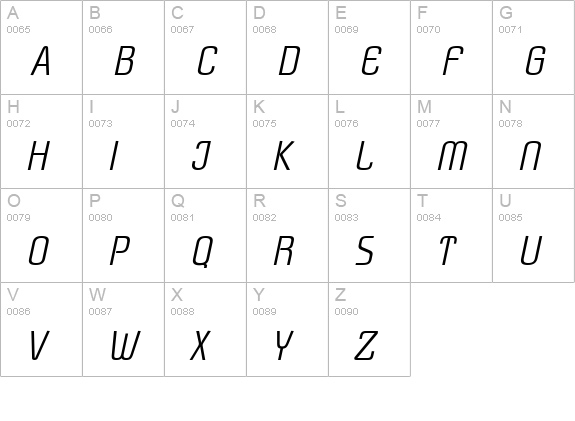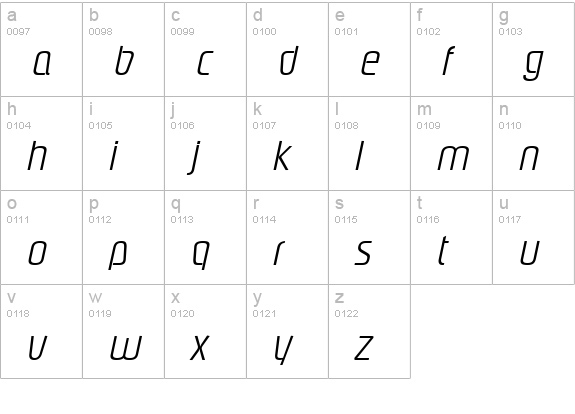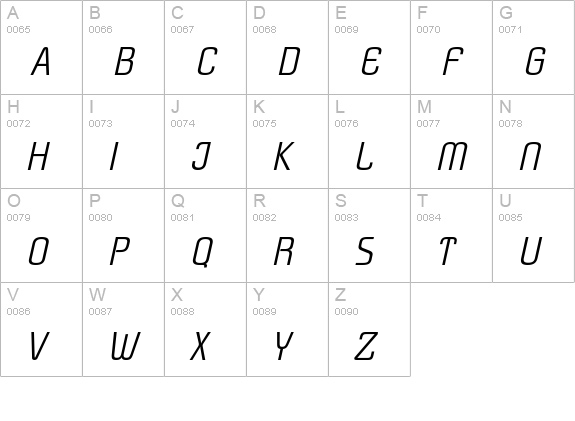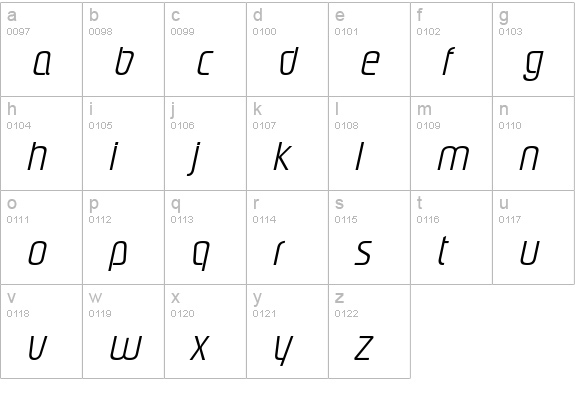
PloverLight Italic Font Details
PloverLight Italic is a distinctive, italic variant in the PloverLight typeface family \xE2\x80\x94 well suited to design and typography projects.
PloverLight Italic font exudes sophistication and elegance with its delicate and refined design. The graceful slant of the italicized characters adds a touch of flair and style to any project. This font is perfect for conveying a sense of modernity and sophistication in various design applications. What's even better is that PloverLight Italic font is available for free download at FontsMarket.com. Whether you're working on a creative project, designing a website, or crafting a professional document, this font will elevate your work with its sleek and polished appearance. Download PloverLight Italic font today and add a touch of class to your designs!